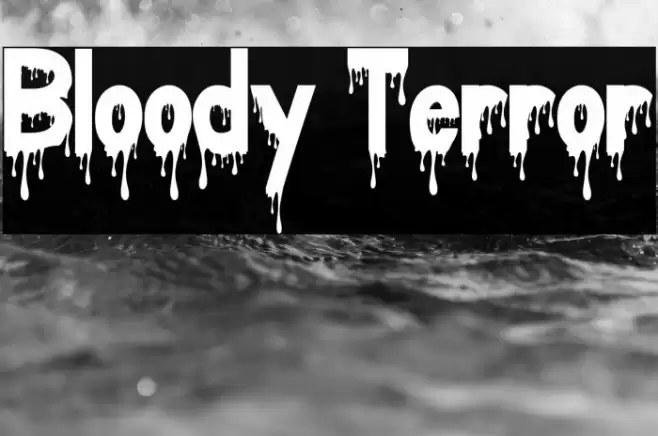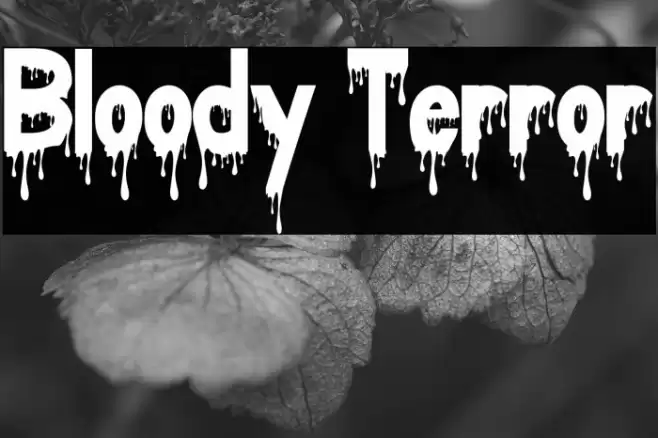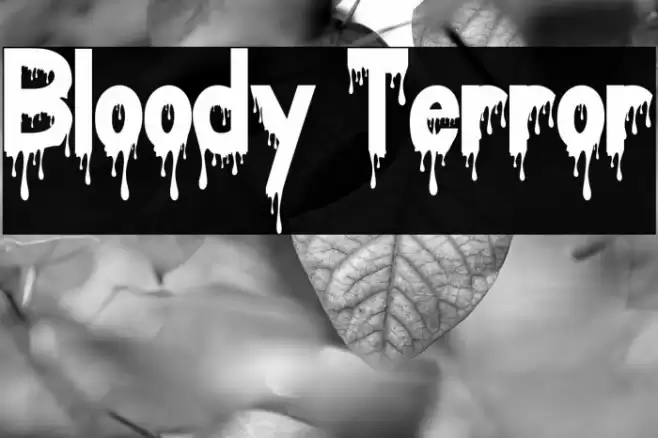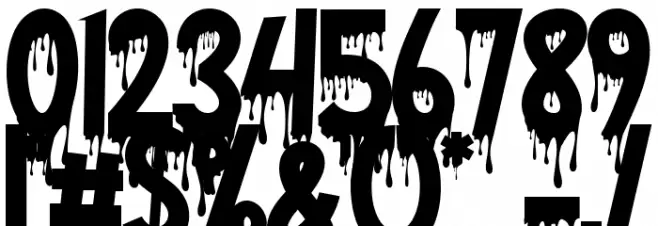
Bloody Terror Font
Bloody Terror Description
This font features a dramatic and eerie design, with each character appearing as if it is dripping with liquid, reminiscent of blood or paint. The uppercase and lowercase letters, as well as numbers and special characters, all share this distinctive dripping effect, creating a cohesive and unsettling aesthetic. The bold, blocky letterforms are accentuated by the dripping elements, making it ideal for horror-themed projects or Halloween events. The font's unique style captures attention and evokes a sense of fear and suspense, perfect for creating a chilling atmosphere.
A bold, dripping font ideal for horror themes and Halloween designs from Drippy fonts.
- Proposed Projects: Horror movie posters, Halloween event flyers, haunted house signage, spooky invitations.